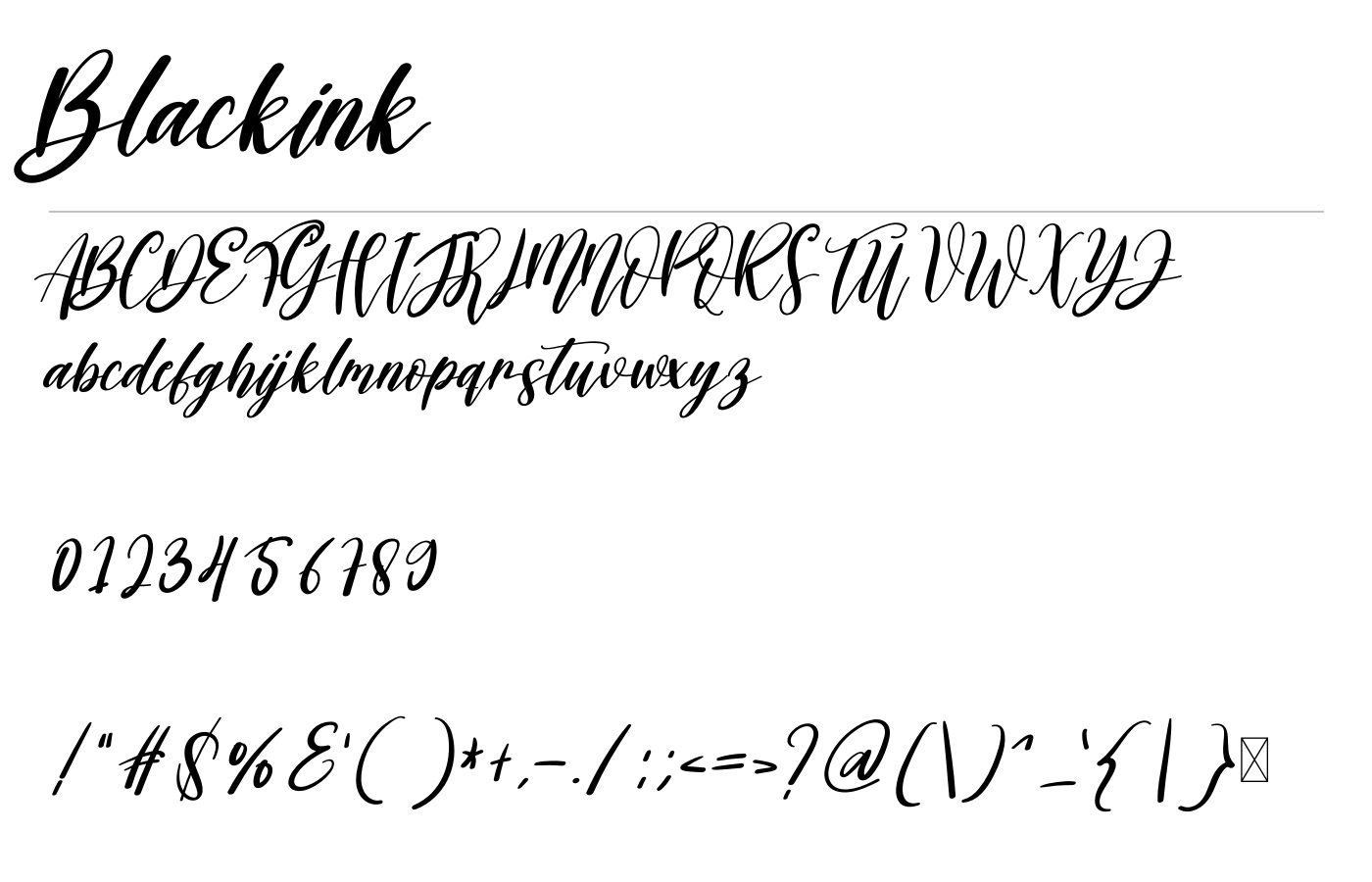
Blackink is a stylish script font featuring elegant, flowing strokes with a handwritten calligraphic feel. Its medium weight and high contrast between thick and thin lines create a dynamic and sophisticated look that works beautifully for invitations, branding, and logos that seek a personal, artistic touch. This font’s lively letterforms and smooth connections make it ideal for adding elegance and flair to creative projects.
Blackink Font
About Blackink Font